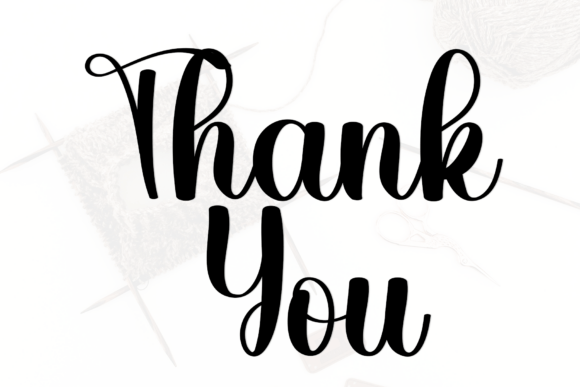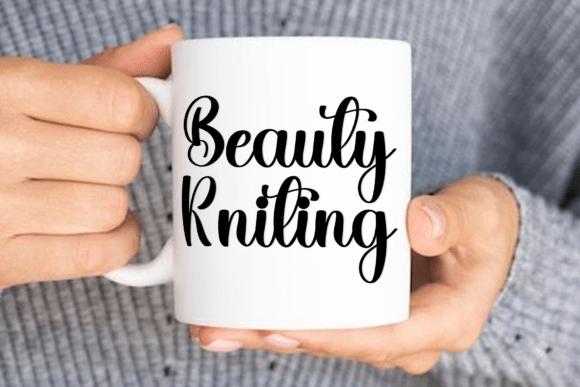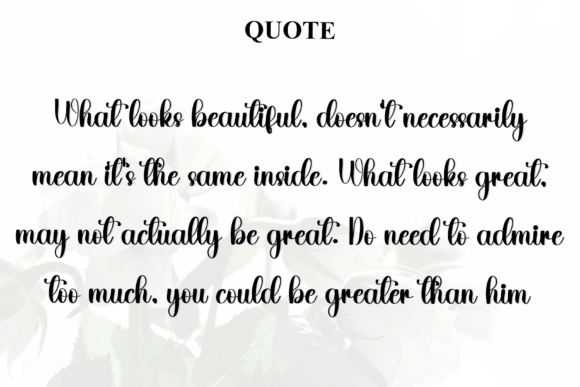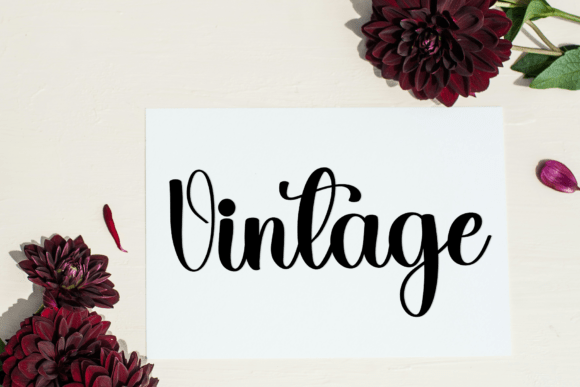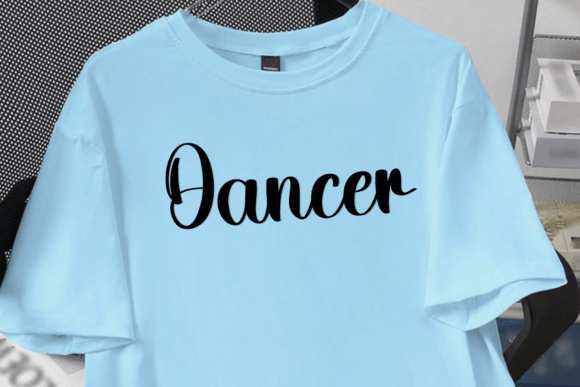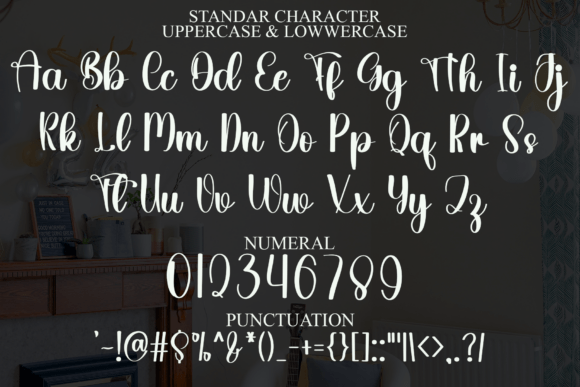
Falling Inlove Font: Add a Touch of Holiday Magic to Your Designs
The holiday season is upon us, and with it comes the desire to create festive and merry designs that capture the spirit of the season. If you’re a designer or crafter looking for a typeface that embodies the whimsy and enchantment of the holidays, look no further than the Falling Inlove Font. This beautiful font is perfect for adding a touch of magic to your designs, and in this article, we’ll explore its features and benefits.
Falling Inlove Font is a decorative typeface that is specifically designed to evoke the feeling of the holiday season. With its intricate details and whimsical flair, it’s the perfect choice for creating designs that are festive, merry, and fun. Whether you’re working on greeting cards, gift tags, or holiday-themed projects, this font is sure to bring a smile to your face and a touch of enchantment to your words.
Decorative Elements and Whimsical Flair
One of the standout features of Falling Inlove Font is its decorative elements and whimsical flair. The font features a range of intricate details, including swashes, ligatures, and glyphs, that add a touch of magic to your designs. These decorative elements can be used to create beautiful and eye-catching designs that are sure to stand out. Whether you’re looking to add a touch of elegance or a dash of whimsy to your designs, Falling Inlove Font has got you covered.
Falling Inlove Font is specifically designed with the holiday season in mind, making it the perfect choice for a range of holiday projects. Here are just a few ideas for how you can use this beautiful font:
- Greeting cards: Create beautiful and festive greeting cards that are sure to delight your friends and family.
- Gift tags: Add a touch of magic to your gift tags with Falling Inlove Font.
- Holiday-themed projects: Whether you’re working on a holiday-themed party invitation, a festive banner, or a merry mug design, Falling Inlove Font is the perfect choice.
One of the best things about Falling Inlove Font is that it’s PUA encoded, which means you can access all of the amazing glyphs and ligatures with ease. PUA encoding allows you to access the font’s built-in features, including swashes, ligatures, and glyphs, without the need for special software or complicated workarounds. This makes it easy to get the most out of your font and create beautiful and eye-catching designs.
Bring a Cheerful and Nostalgic Ambiance to Your Words
Falling Inlove Font is more than just a typeface – it’s an experience. With its festive and merry vibe, it’s sure to bring a cheerful and nostalgic ambiance to your words. Whether you’re looking to evoke the feeling of childhood holidays or create a sense of excitement and anticipation, Falling Inlove Font is the perfect choice. So why settle for a boring and generic font when you can add a touch of magic to your designs with Falling Inlove Font?
Let Your Typography Shine
In conclusion, Falling Inlove Font is a beautiful and festive typeface that is perfect for adding a touch of holiday magic to your designs. With its decorative elements, whimsical flair, and PUA encoding, it’s the perfect choice for designers and crafters looking to create stunning and eye-catching designs. Whether you’re working on greeting cards, gift tags, or holiday-themed projects, Falling Inlove Font is sure to bring a cheerful and nostalgic ambiance to your words. So why settle for a boring and generic font when you can add a touch of magic to your designs with Falling Inlove Font?